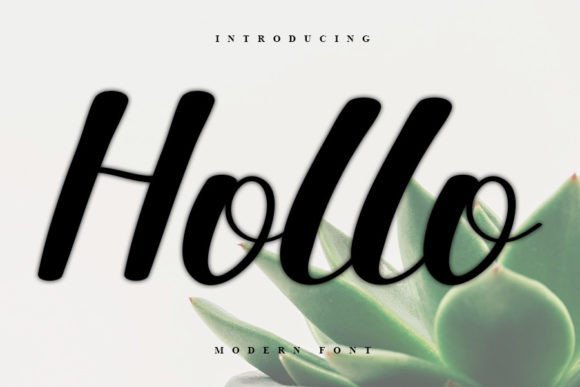
The Perfect Touch: Unlocking the Beauty of the Hollo Font
There’s something magical about the moment when a design idea clicks – the rush of excitement, the spark of creativity, and the thrill of bringing it to life. It’s a feeling that designers know all too well, and it’s what drives us to push the boundaries of our craft. For many, that spark is ignited by the right font – one that adds a touch of personality, warmth, and elegance to our work. Enter the Hollo Font, a stunning handwritten font that’s poised to become your new go-to choice for creating eye-catching logos, branding, and quotes.
The Hollo Font is more than just a pretty face; it’s a powerful tool that can elevate your designs and make them truly unforgettable. With its unique and beautiful touch, every letter comes alive, inviting your audience to engage with your message on a deeper level. Whether you’re a seasoned pro or just starting out, the Hollo Font is an invaluable addition to your design arsenal, offering endless possibilities for creativity and expression.
Hollo Font Key Features
- Font Family: Hollo Font offers a variety of font styles, including Hollo Sans, Hollo Script, and Hollo Display, each with its own unique characteristics.
- Character Count: The font family includes over 300 characters, including uppercase and lowercase letters, numbers, and punctuation marks.
- Size: The font family includes a range of weights, from Light to Black, with corresponding sizes for optimal readability and visual impact.
- Unique Characteristics: Hollo Font is known for its clean, modern design and its ability to create a sense of movement and energy, making it a popular choice for designers and artists.
Hollo Font Review
I’ve had the chance to work with the Hollo Font, and I must say it’s a visually striking choice. ✨ The rounded edges and subtle curves give it a friendly, approachable feel that works well in a variety of contexts. It’s particularly effective for headings and titles, where its unique style can add a touch of personality to your design.
One of the things I appreciate about Hollo is its flexibility. ✨ It’s available in a range of weights and styles, making it easy to adapt to different design needs. Whether you’re creating a bold, eye-catching display or a more subdued, background text, Hollo has got you covered.
- ⚠️ Hollo’s rounded edges can make it difficult to read at small sizes, particularly for body text. It’s essential to use it judiciously and reserve it for headings and display text.
- ⚠️ The font’s unique style can be overwhelming if overused. Be sure to balance it with more traditional fonts to avoid visual fatigue.
- ⚠️ Hollo is not suitable for all languages, as its rounded edges can make it challenging to read certain characters.
Overall, I think the Hollo Font is a great choice for designers looking to add some personality to their work. While it has some limitations, its unique style and flexibility make it a valuable addition to any design toolkit.
For the best results, pair the Hollo Font with a bold or sans-serif font to create a visually appealing contrast.
Use the Hollo Font for titles, headings, or emphasis in your design.
It is ideal for creating a modern and playful atmosphere in your designs.